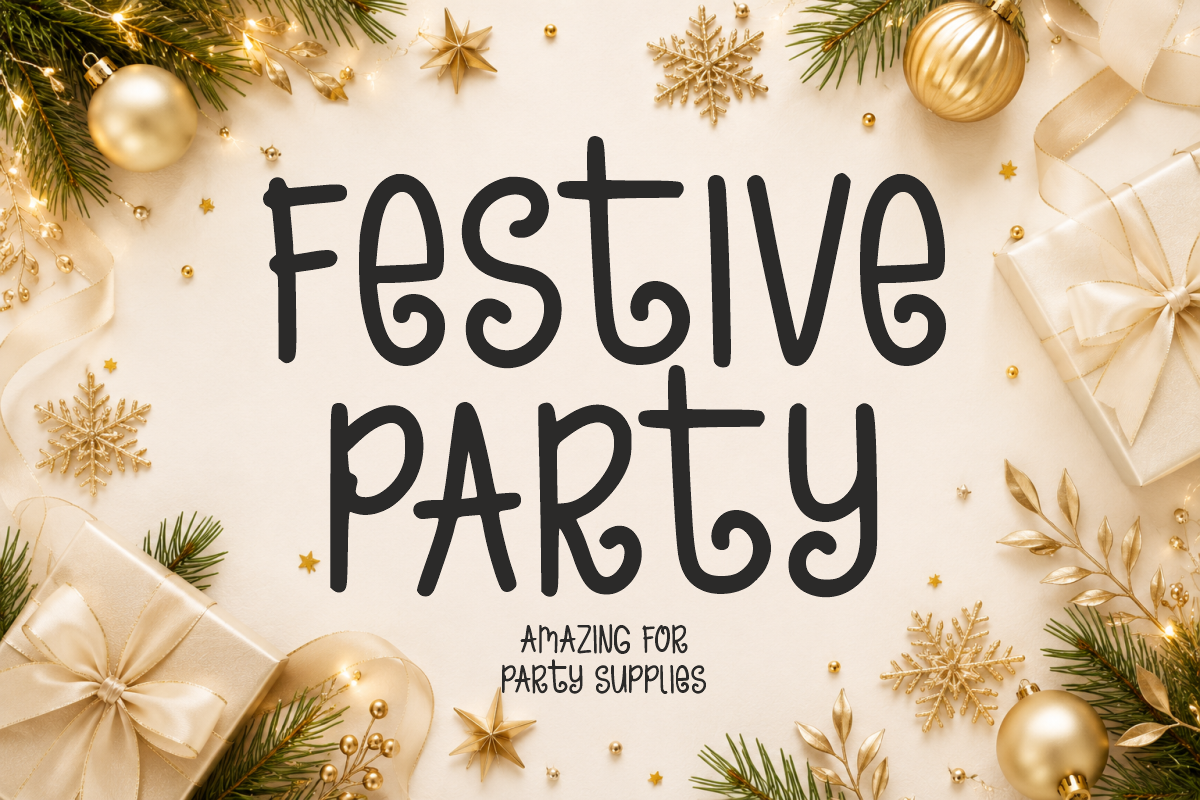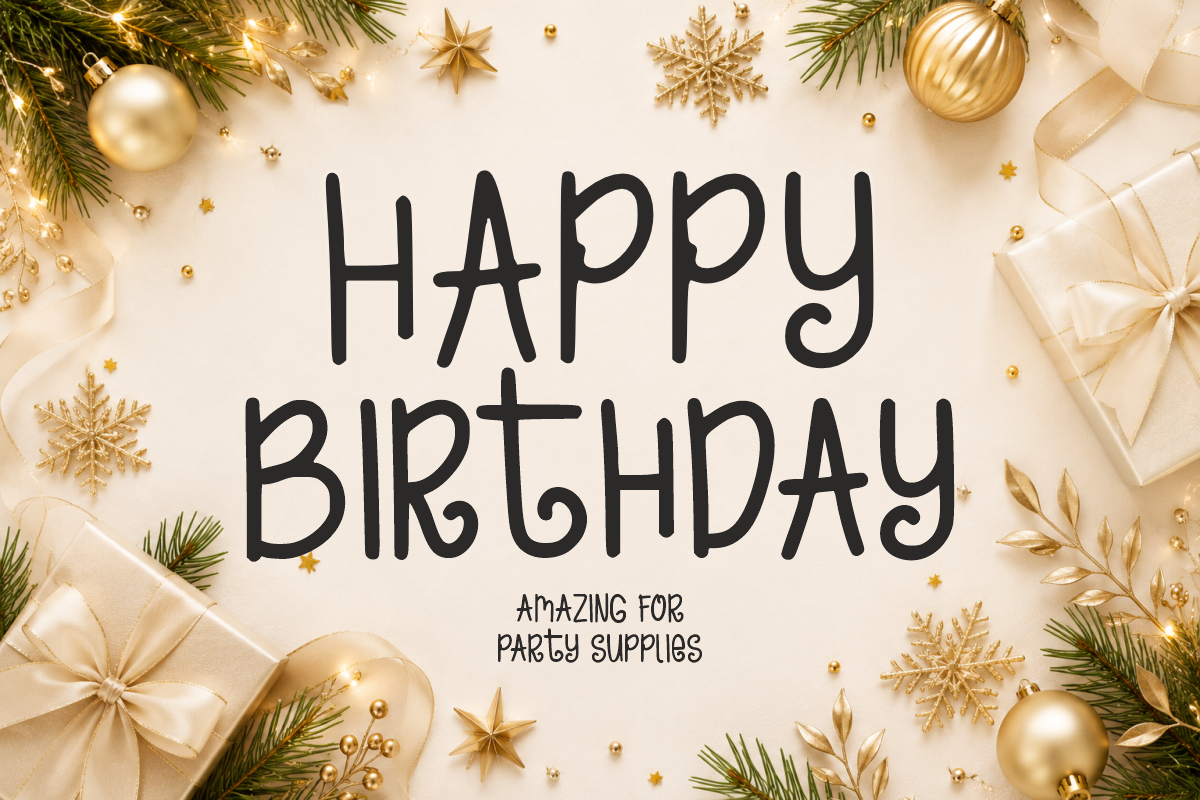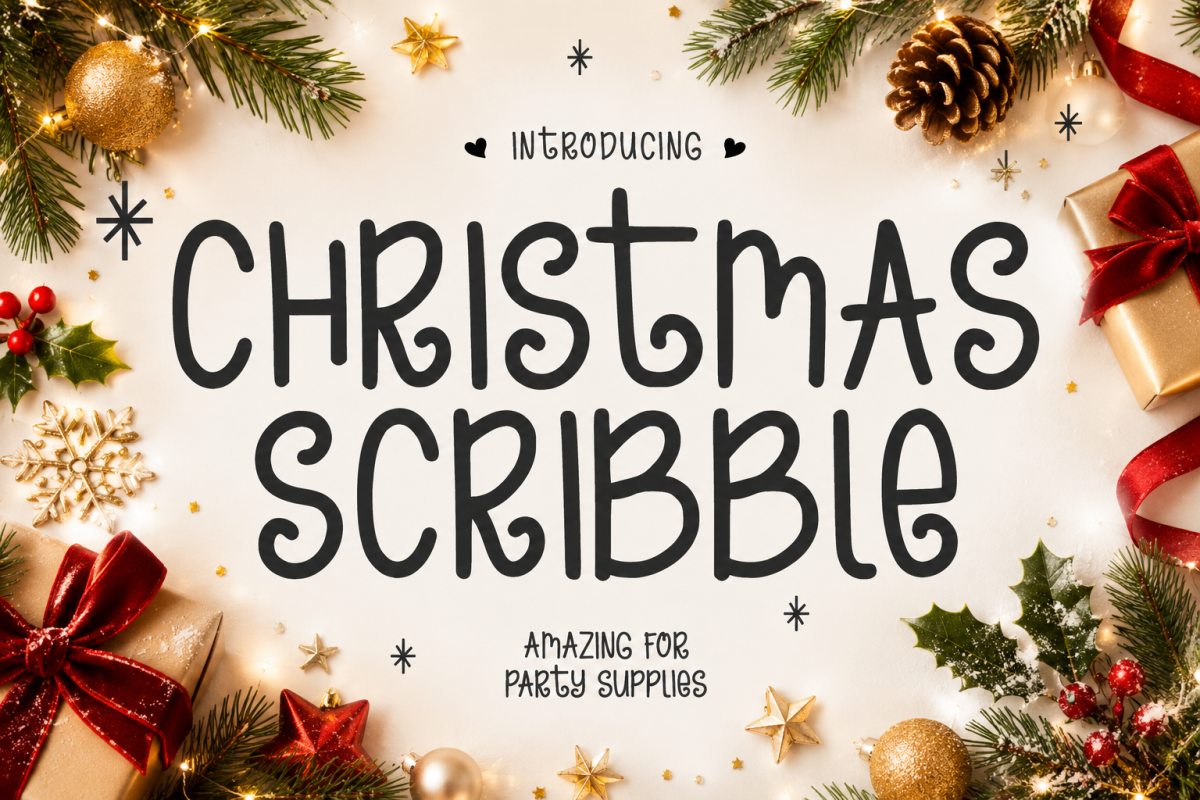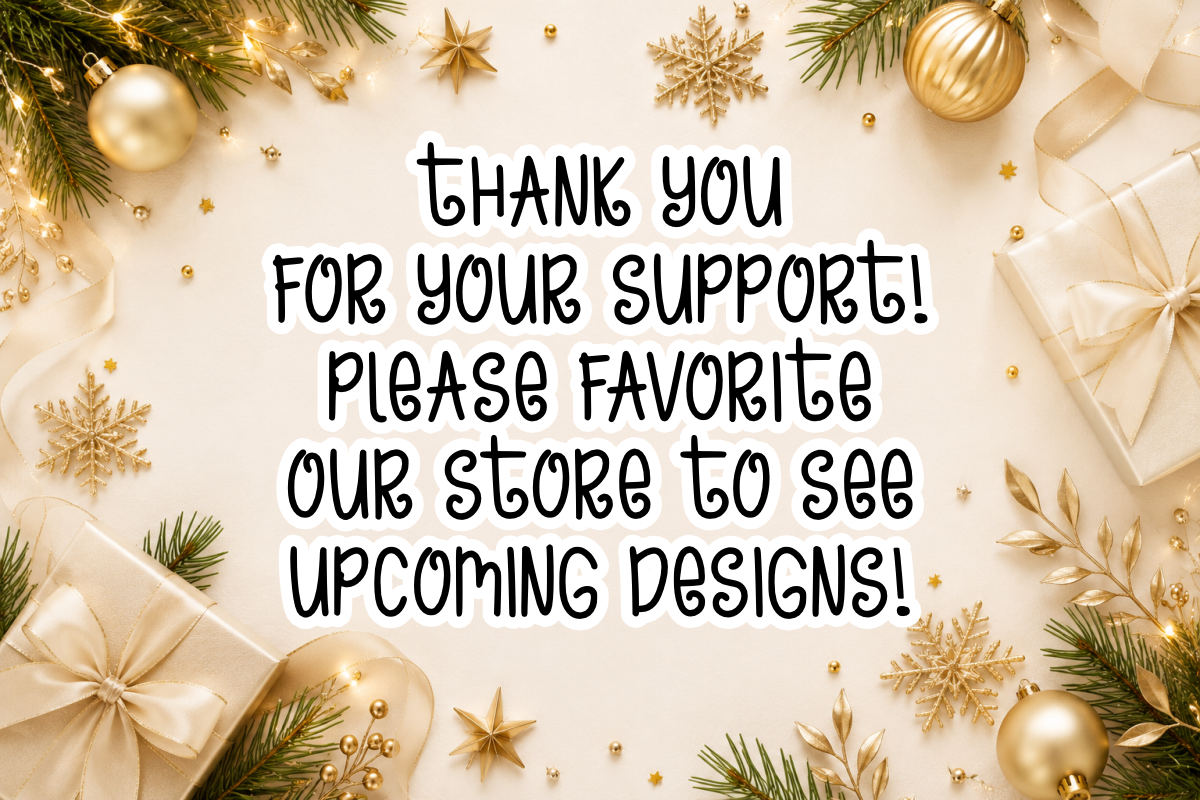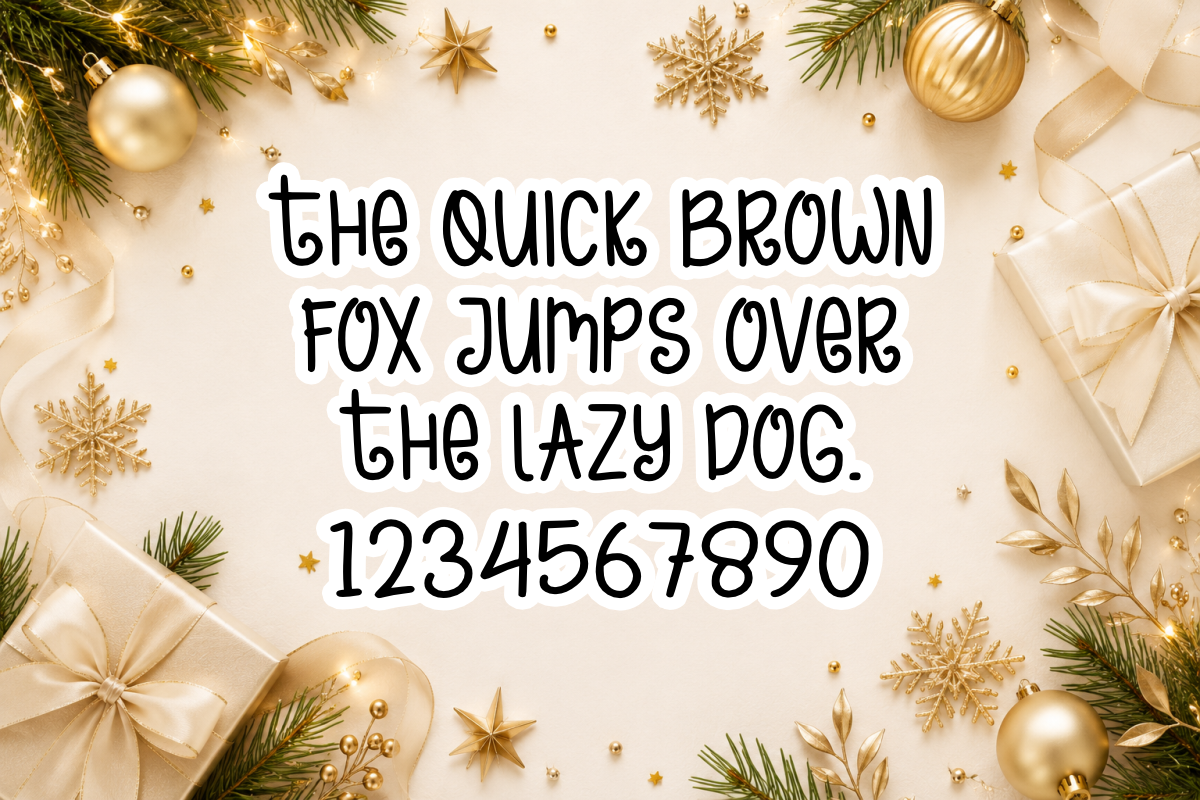
Christmas Scribble - Festive Font
Christmas Scribble is a whimsical, handwritten display font featuring tall, playful letterforms adorned with cheerful curled swirls. Overflowing with cozy holiday joy and festive magic, this charming font adds a delightful pop to Christmas cards, gift tags, holiday party supplies, and craft projects. Every character is cleanly vectorized to guarantee high-resolution prints and smooth, effortless cutting on Cricut and Silhouette machines.